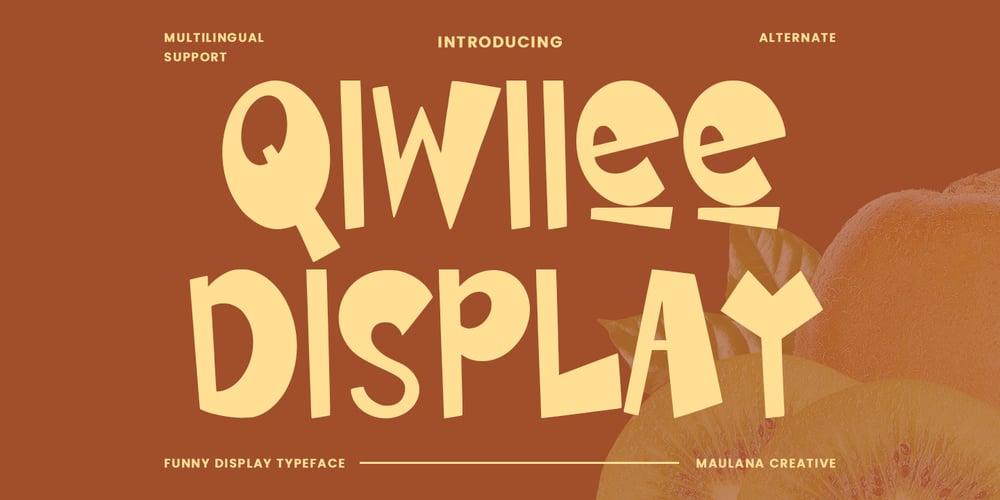
MC Qiwiiee Font Family was designed by Gilang Maulana and published by Maulana Creative. MC Qiwiiee contains 1 styles and family package options. Qiwiiee funny display typeface. Heavy stroke, fun character with a bit of ligatures. To give you an extra creative work. Qiwiiee funny display typeface support multilingual more than 100+ language. This font is good for logo design, Social media, Movie Titles, Books Titles, a short text even a long text letter and good for your secondary text font with script or serif. Make a stunning work with Qiwiiee funny display typeface. Cheers, Maulana Creative